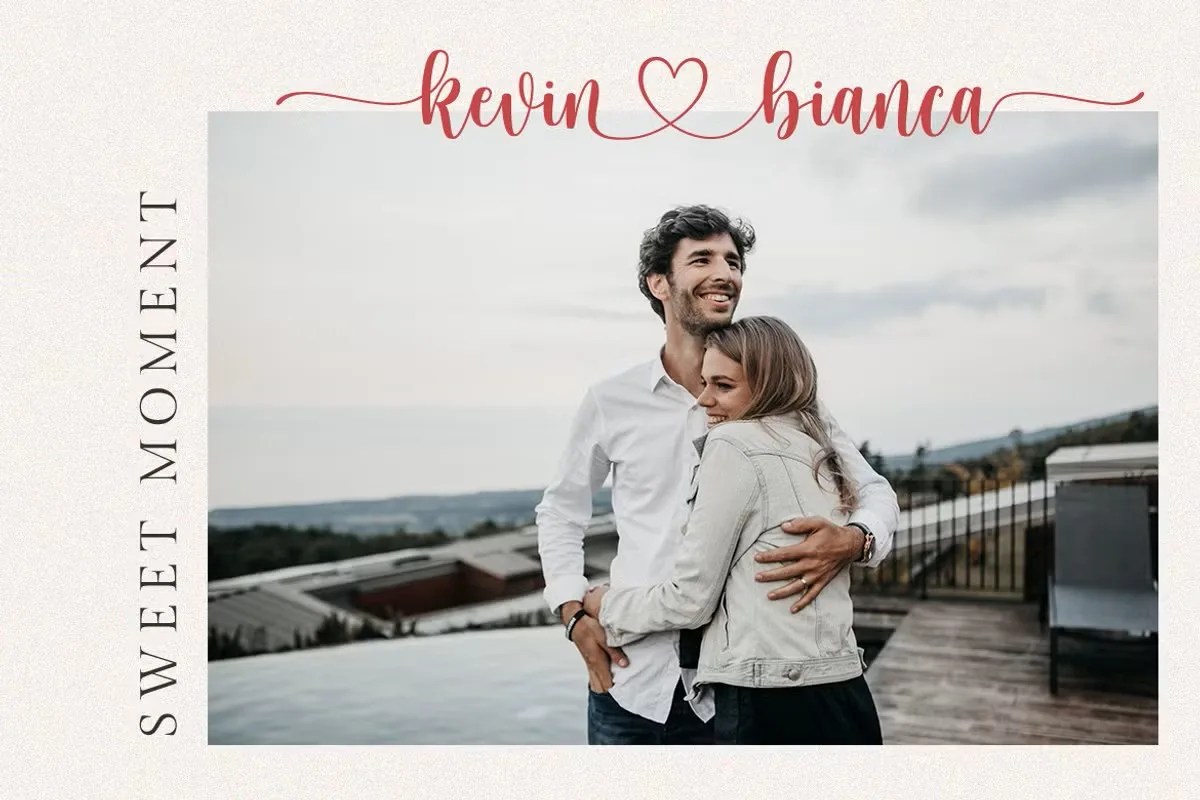
Hello Honey, a delightfully sweet and charming script font from Ef Studio. This font features a playful, bouncy baseline and organic, flowing letterforms that mimic the warmth of authentic handwriting. Hello Honey is perfect for adding a friendly and personal touch to any design, making your text feel both beautiful and approachable.
Bring your creative ideas to life by using Hello Honey on everything from charming wedding invitations to beautiful branding for a handmade goods business. It’s the perfect choice for creating eye-catching social media quotes, heartfelt greeting cards, and any personal project that needs a sprinkle of sweetness and personality.
• Charming and sweet script style
• Features a playful, bouncy baseline
• Elegant, natural letter connections
• Ideal for invitations, branding, and social media
• Adds a friendly, handcrafted touch